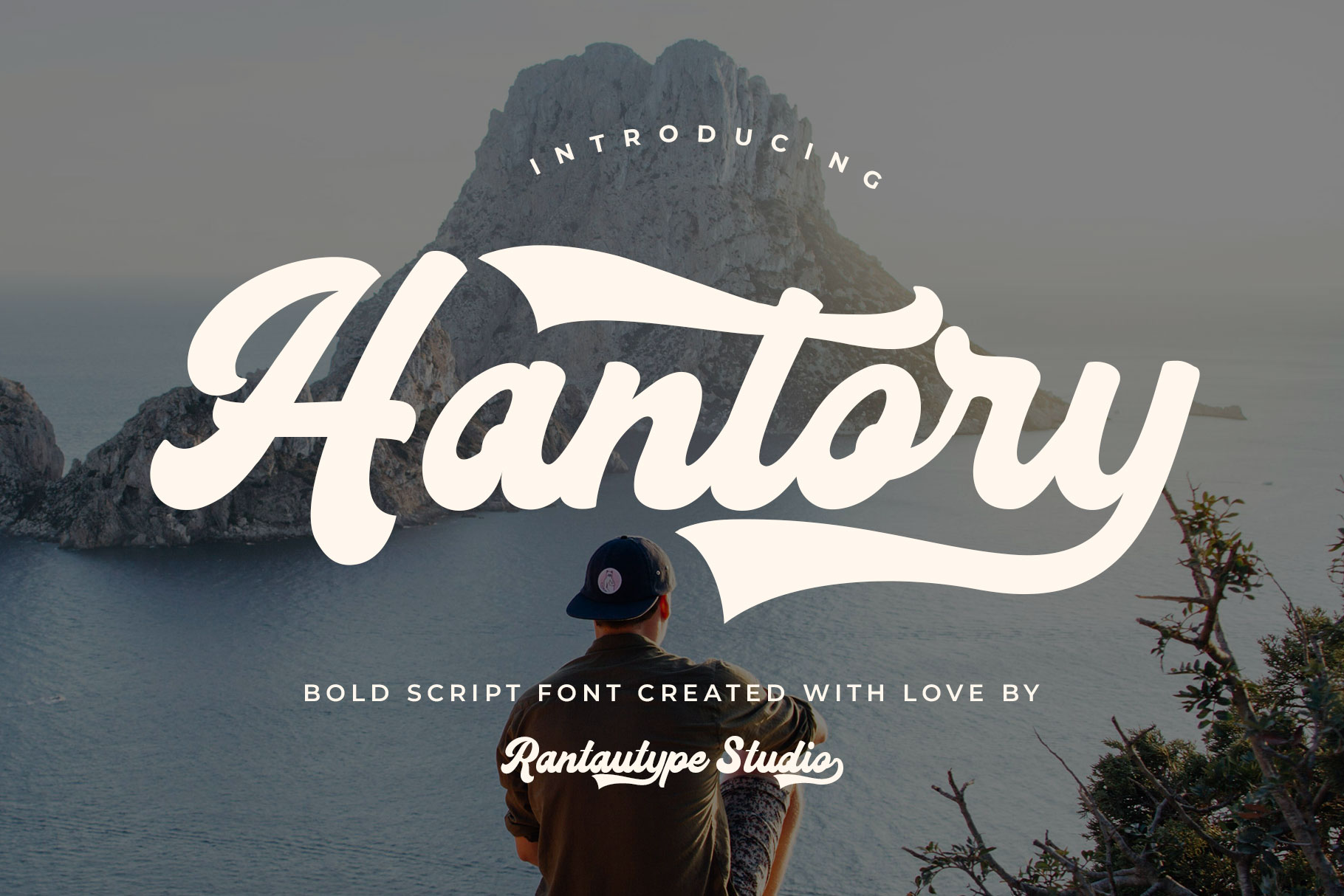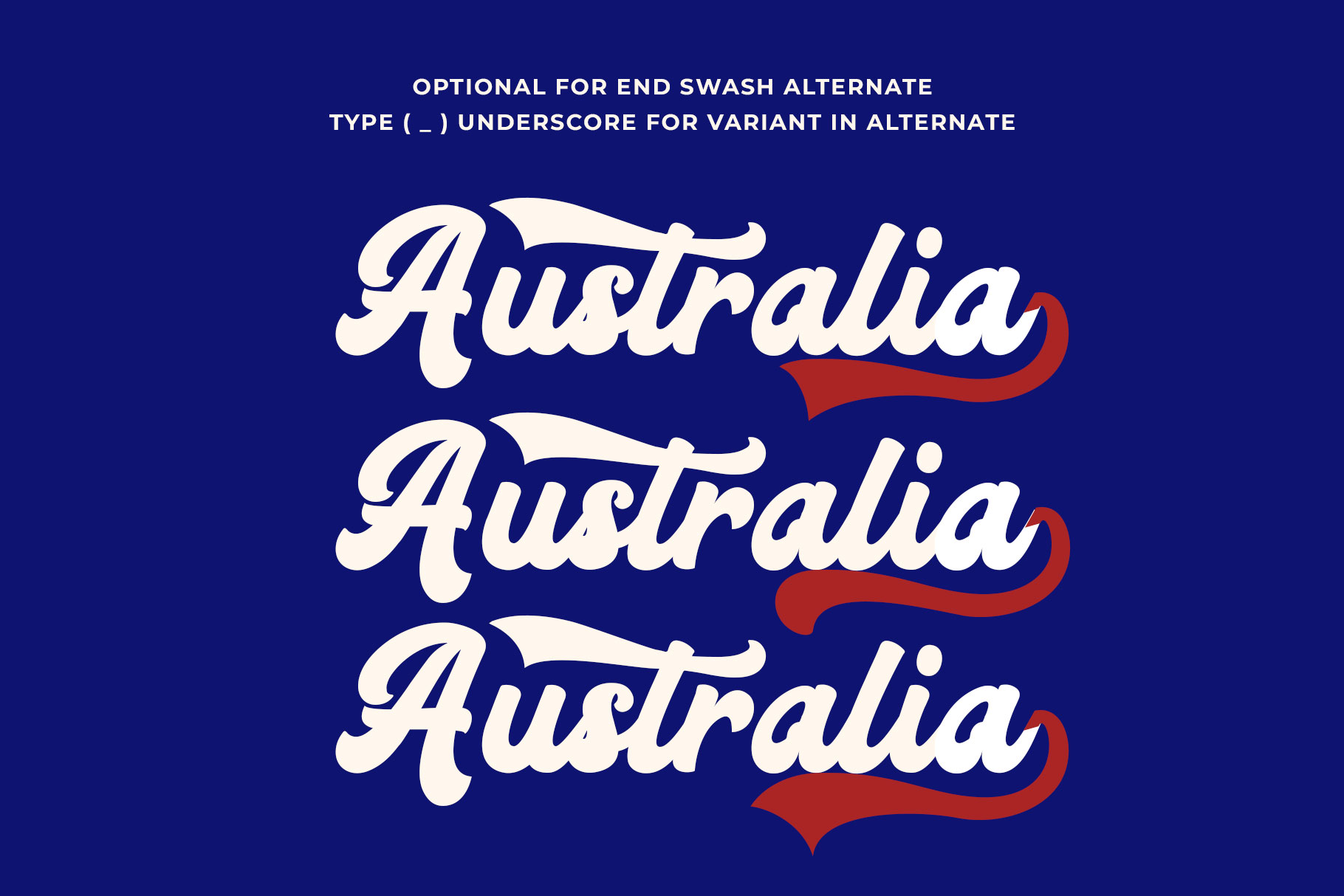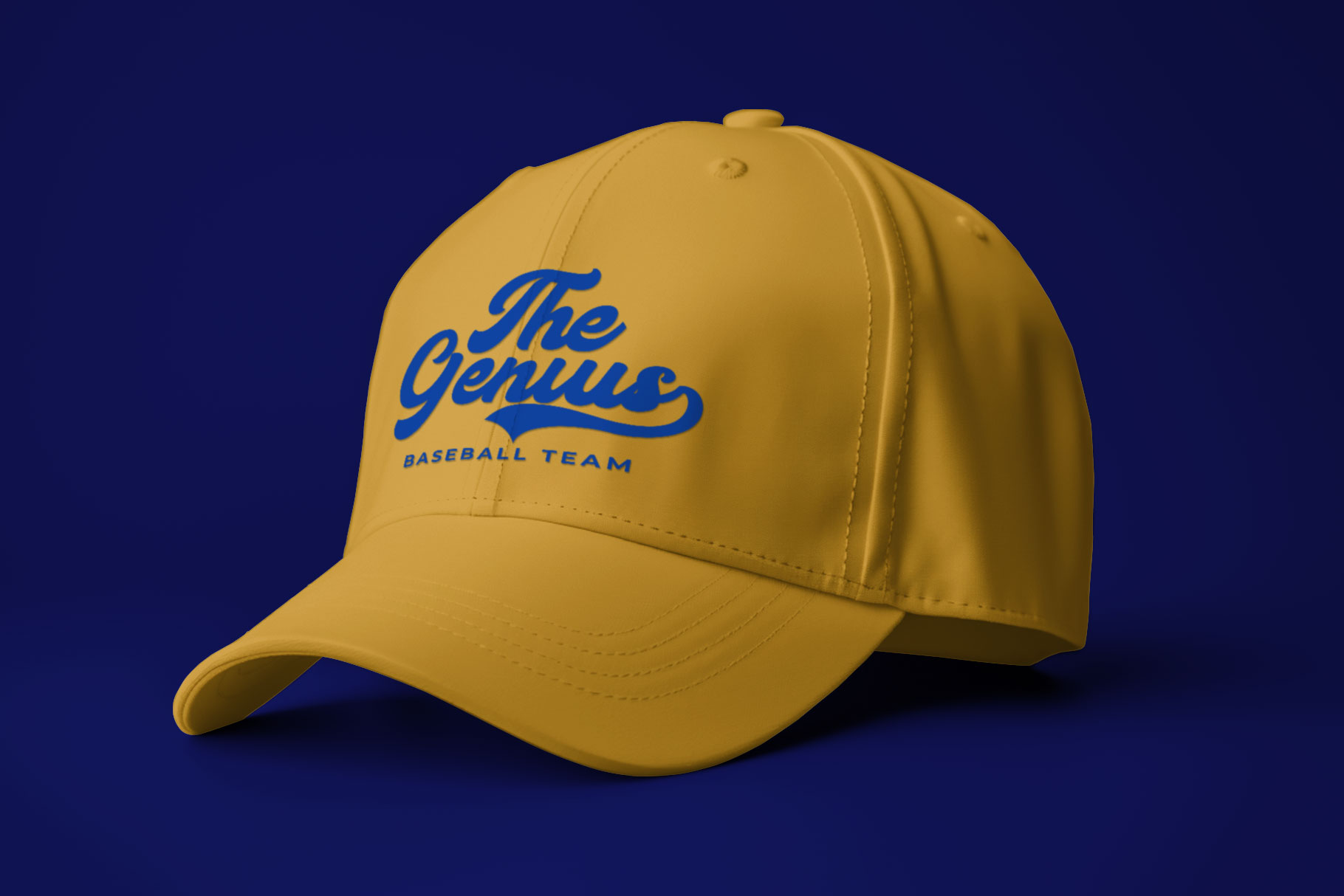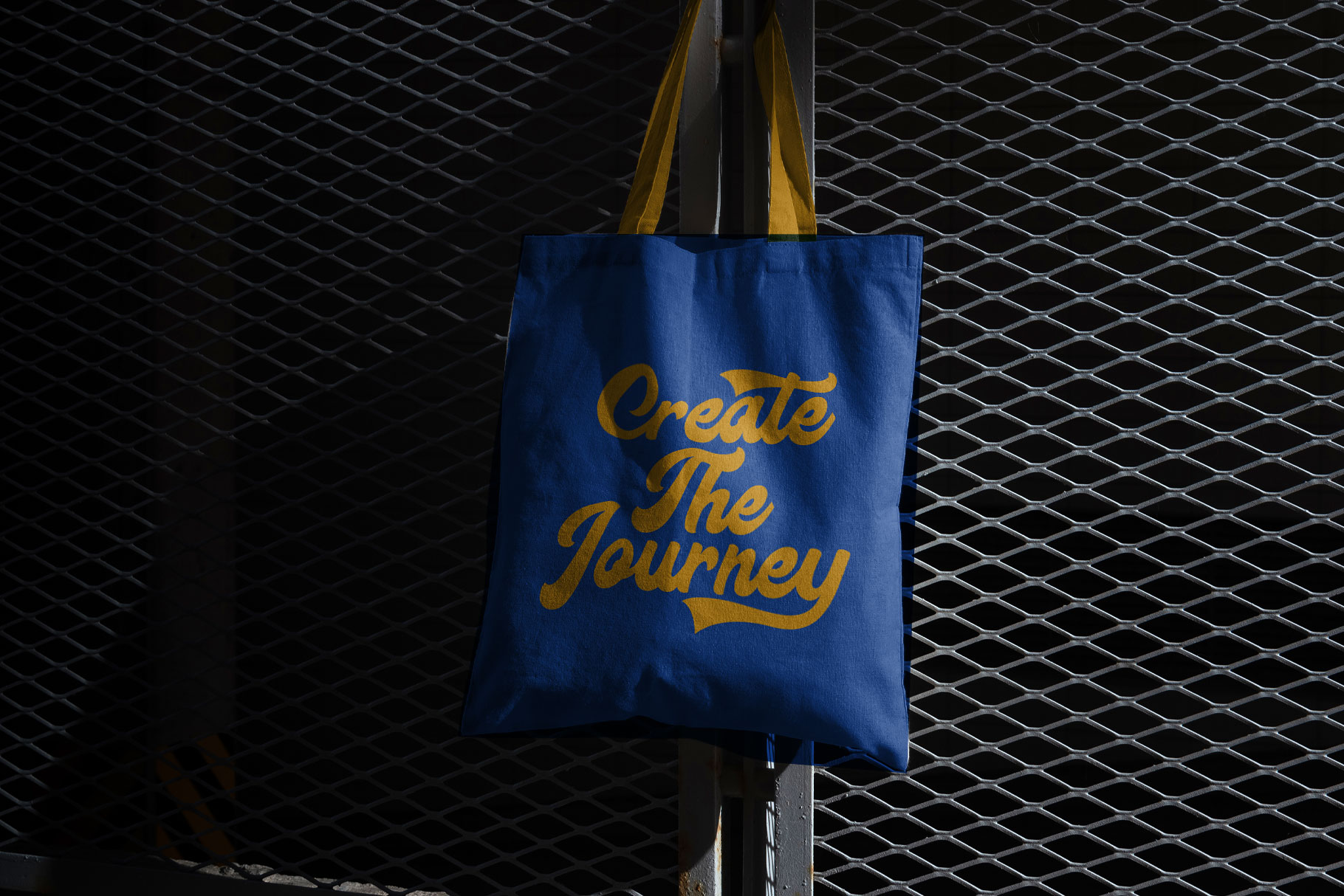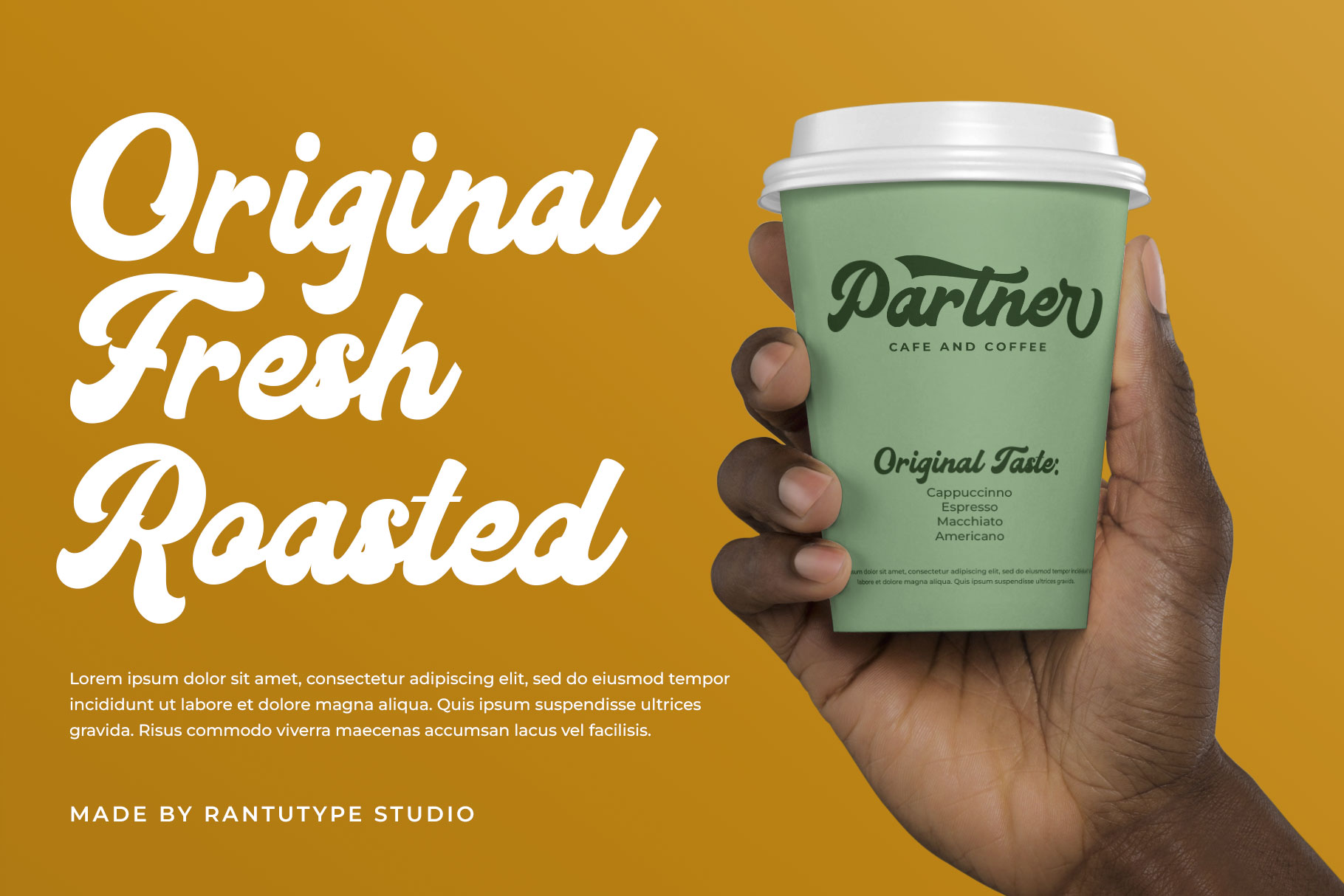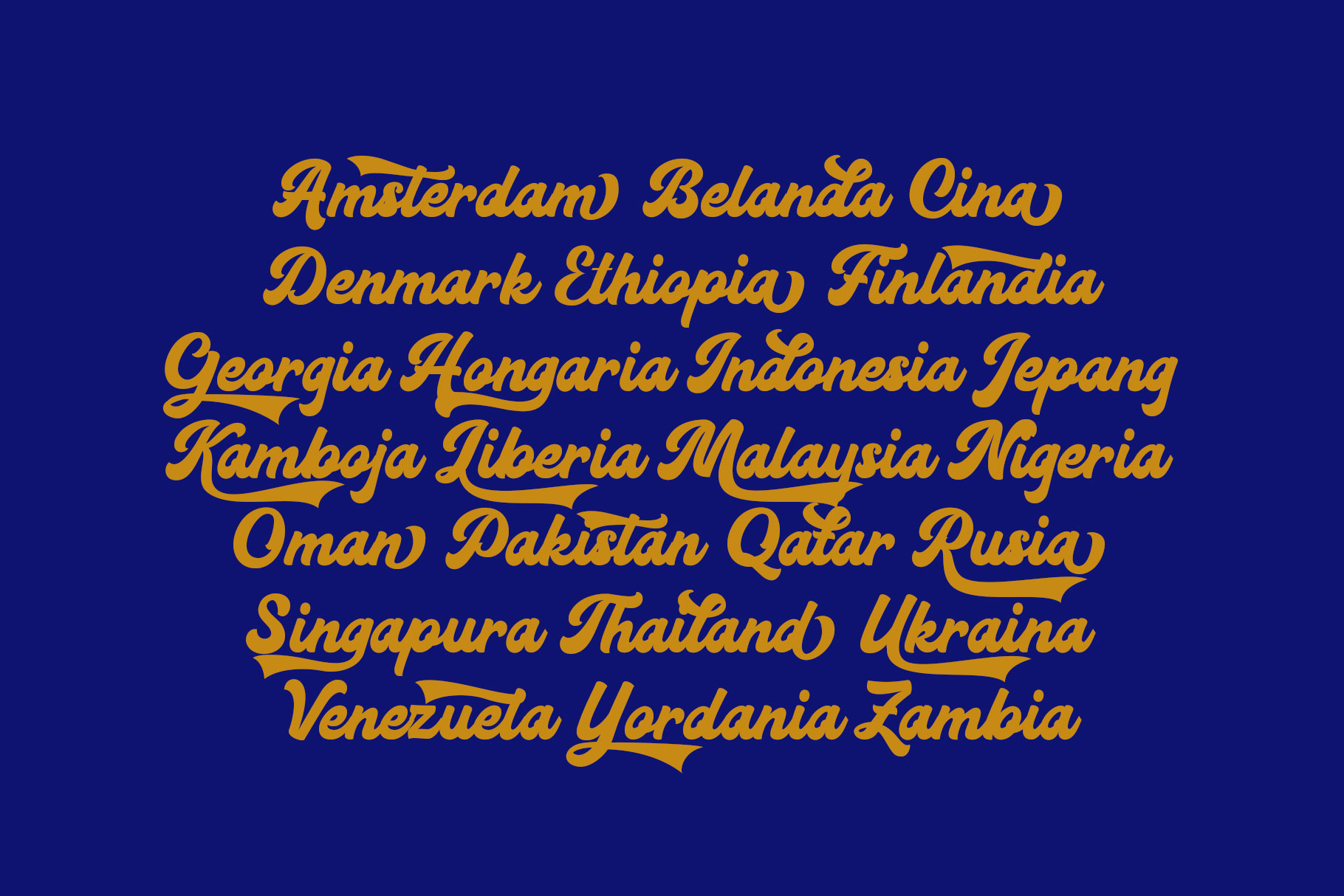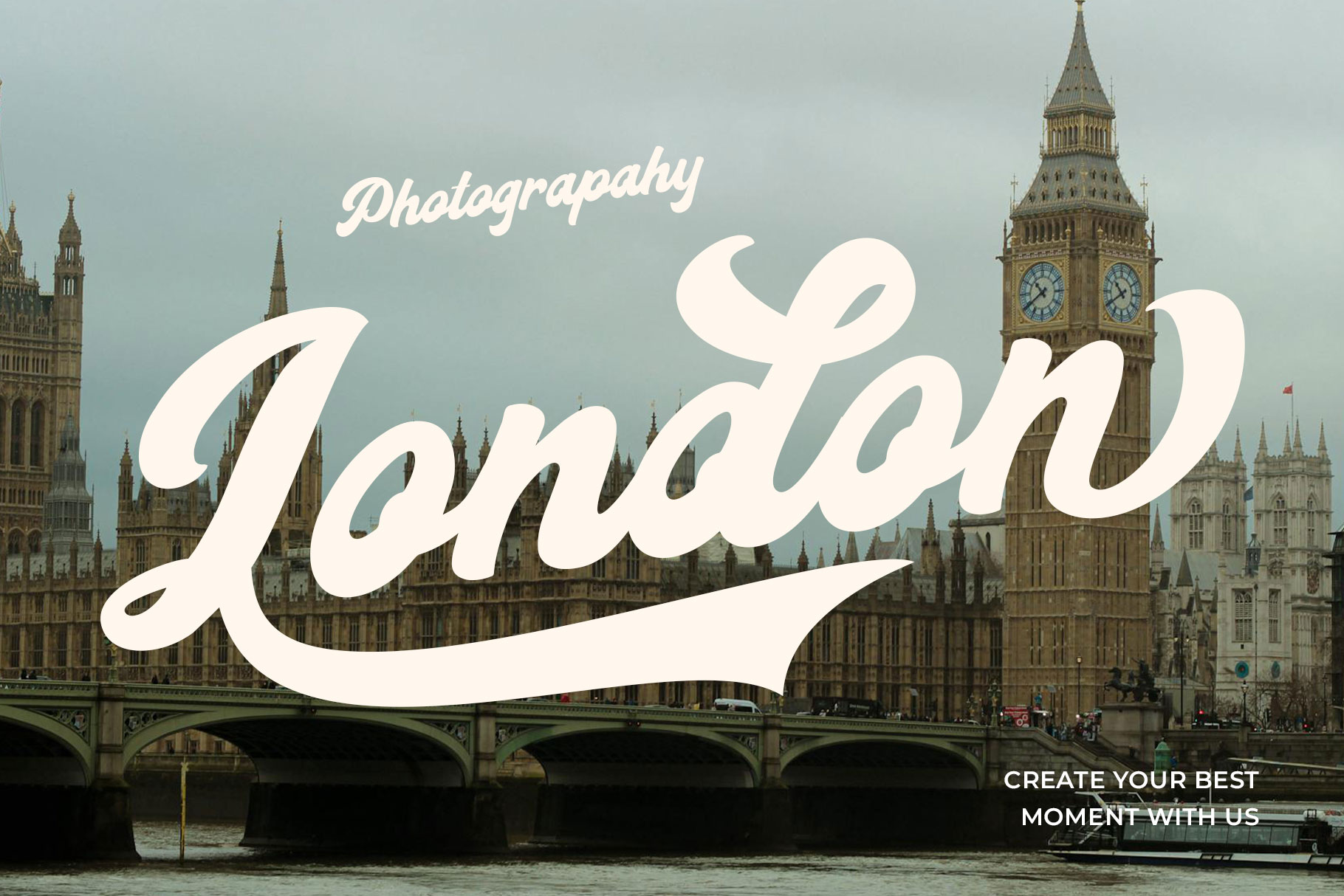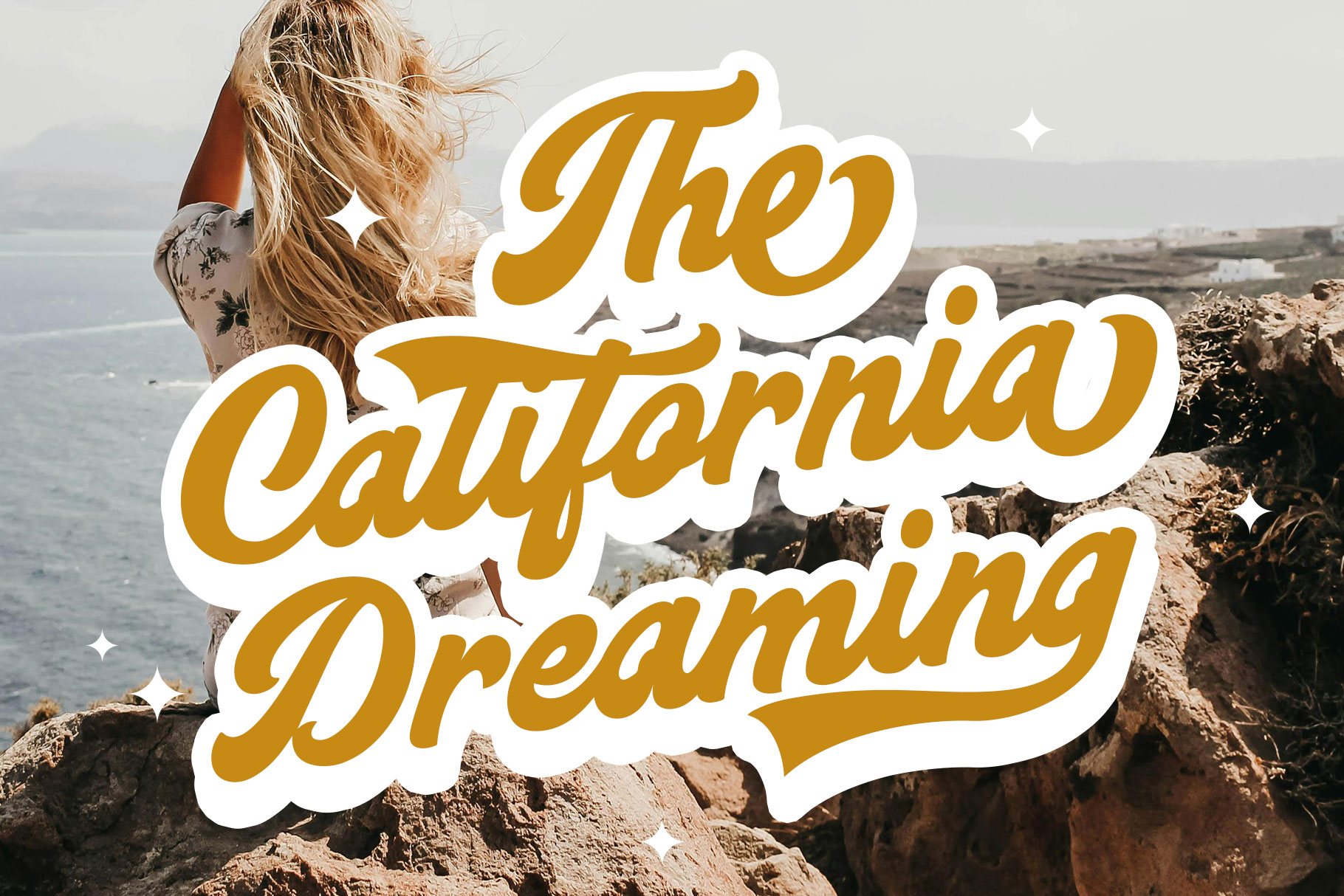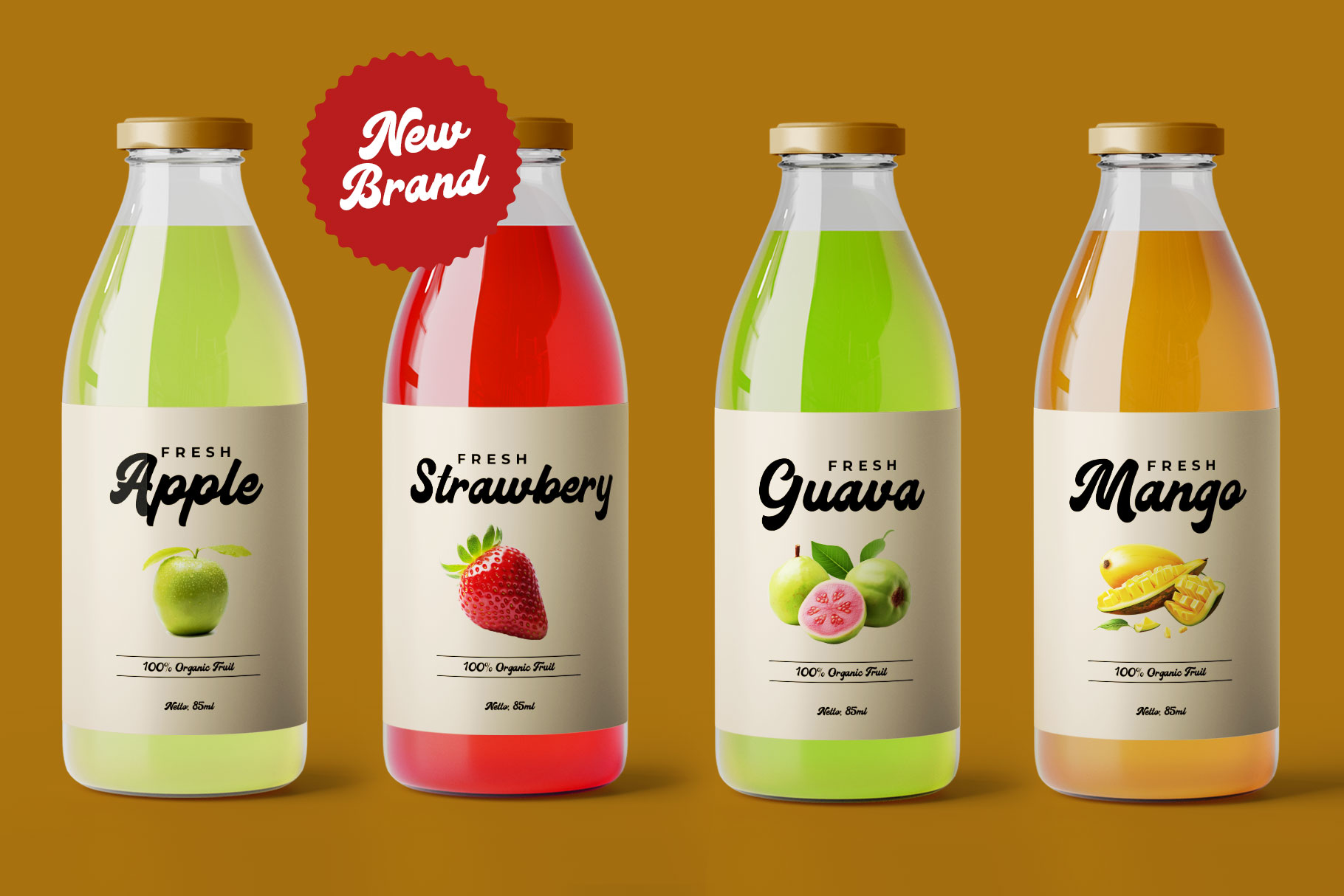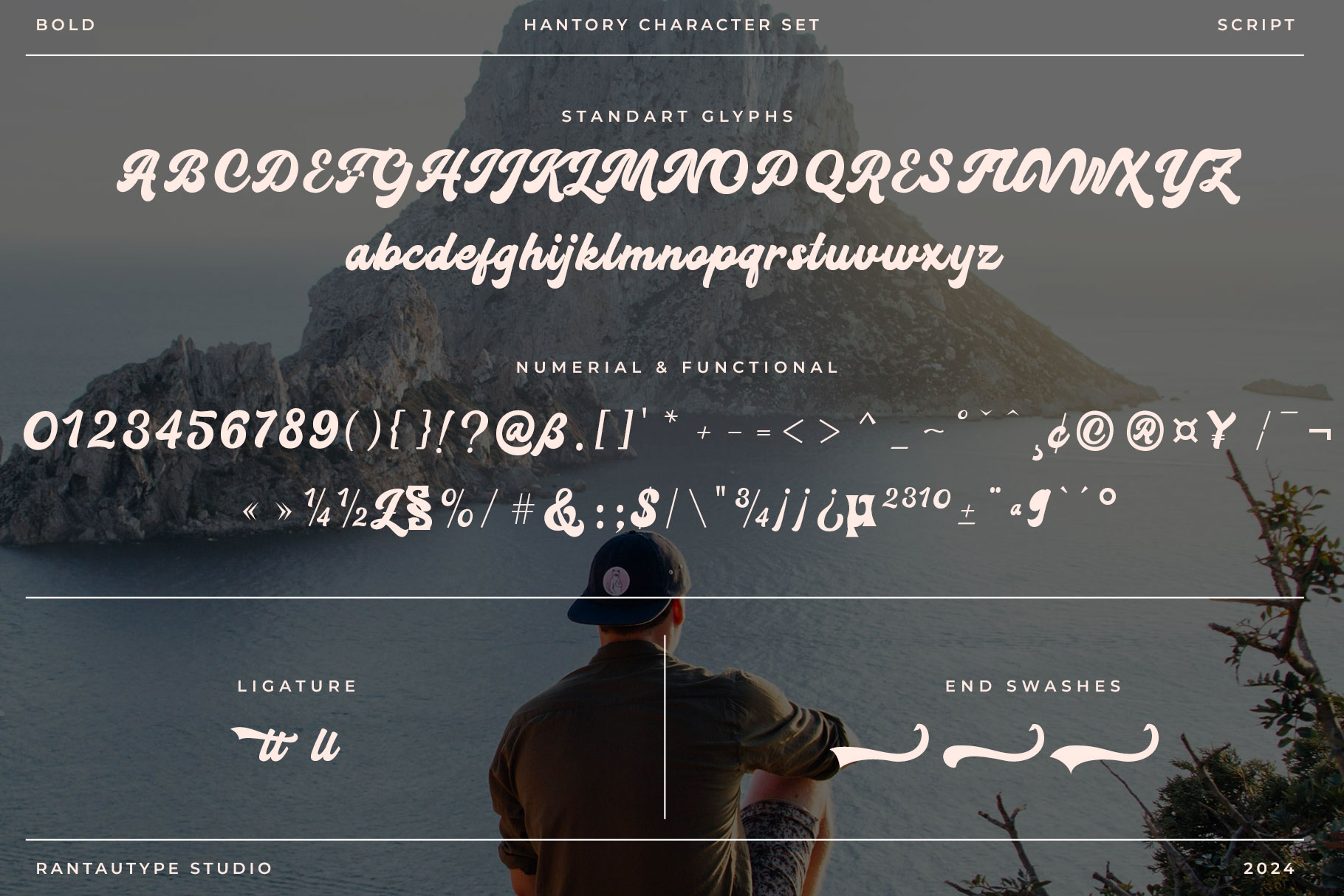
Hantory Bold Script Font
Hantory is bold script font with modern casual style and circle flow. Hantory come with authentic hand-lettering touch with more feature alternate, ligature and swashes, you can mix to make awesome design project.
Hantory is a perfect choice for any creative endeavor, lifestyle design such as logos, title, watermark on photography, cover, branding, display and magazine, wedding event, corporate brand, quotes, album cover, business card, business project, company branding and more project with handwritten taste.